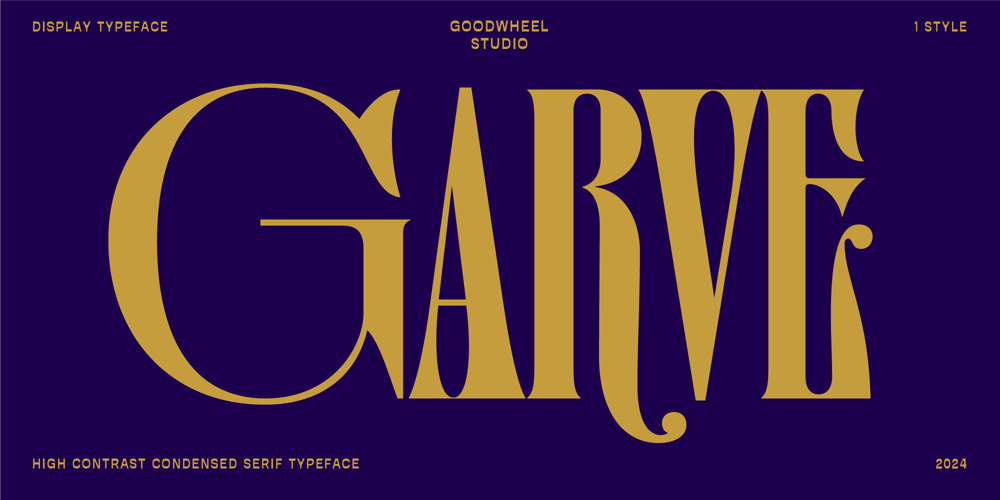
GW Garve
GW Garve font
GW Garve Font Family was designed by Ilham Herry, Akbar Gumelar and published by Goodwheel Studio. GW Garve contains 1 styles and family package options. Crafted for elegance, this condensed high-contrast serif is ideal for commanding headlines. Its OpenType features, like Contextual Alternates and Ligatures, provide an impeccable blend of form and flexibility.